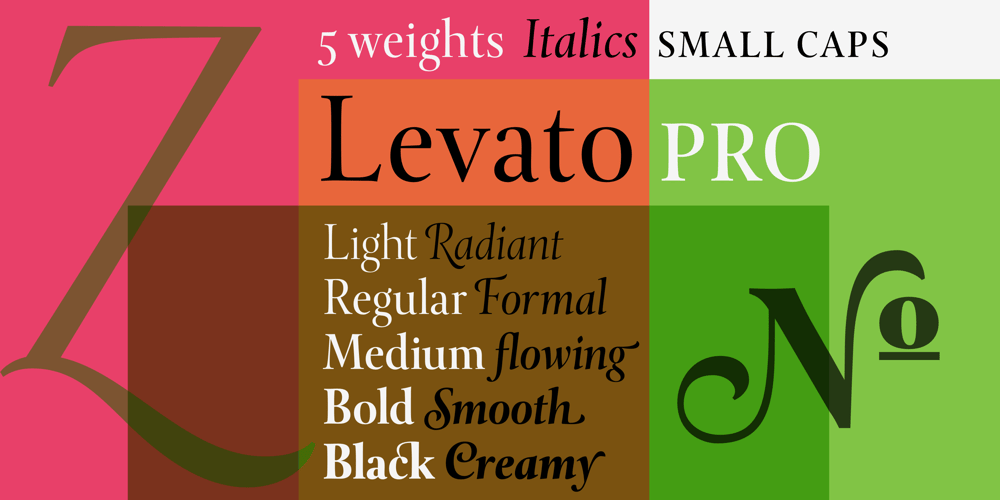
Levato Font Family was designed by Felix Bonge and published by Linotype. Levato contains 10 styles and family package options. Levato, the first font designed by Felix Bonge, is an Antiqua that is full of character and is refined but by no means sterile. This typeface provides for a wide range of options for creating individual designs.It was not really Felix Bonge’s intention to create a whole font family when, as a second year student, he began several exercises in contrast and proportion as part of the typeface design course of Professor Veljovi? at Hamburg University of Applied Sciences. However, these initial studies developed into a project that Bonge persisted with over the following years while working towards his degree. He continually had new insights and ideas that he was able to exploit for his font. Of particular importance, he claims, was a calligraphy seminar, which prompted him to completely rework his concept. It took him several years before his extensive font Levato™ was ready. Although the forms of Levato are ultimately derived from Renaissance Antiqua, Bonge has slightly increased the relative contrast in his version. This gives the font a graceful appearance that is further emphasized by the reduced x-height and the associated prominence of the ascenders. And, in addition, the relatively fine serifs, which are almost linear at their ends, infuse Levato with a hint of classical Antiqua á la Bodoni. At the same time, Bonge cleverly compensates for the sterilising tendency of this font form. Soft and rounded serif attachments and rounded line apexes offset the severe nature of the font and provide it with an aura of vivacity. This effect is promoted by the calligraphic-like foot of the lowercase h, n and m and the not quite horizontal bars of the uppercase E and F. Overall, Bonge has succeeded in creating a refined and yet very dynamic typeface.Levato is available in five weights; Light, Regular, Medium, Bold and Black, in each case with the corresponding italic versions. Bonge treats Levato Italic as a genuine cursive typeface. Its letters are thus slightly narrower than the analogous upright letters and their forms are considerably more curvilinear.All the versions of Levato boast an enormous range of characters to meet all possible requirements. In addition to four sets of minuscule and majuscule numerals for tabular and proportional typesetting, there are also small caps, numerous ligatures, ornamental characters and even swash variants of letters. With their generous, sweeping curves, the swash variants (available as OpenType versions) can be used for striking titling effects or as initials.